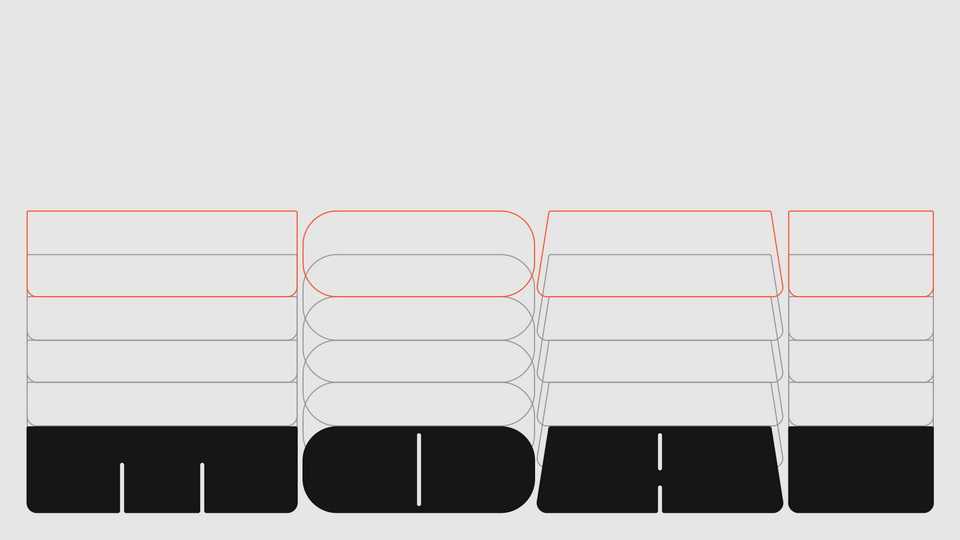
Download Moai font, a neo-brutalist variable typeface conceived with flexible proportions and a singular heavy weight, including the oblique. Moai is useful for any quirky display uses.